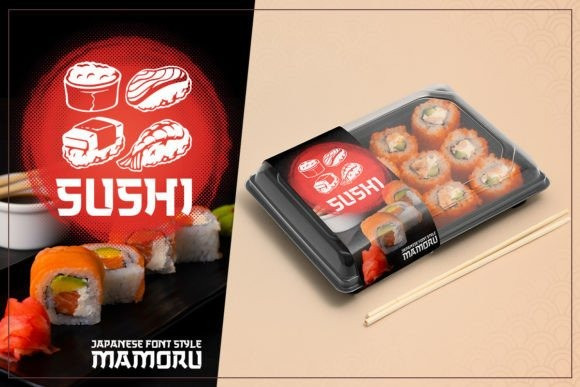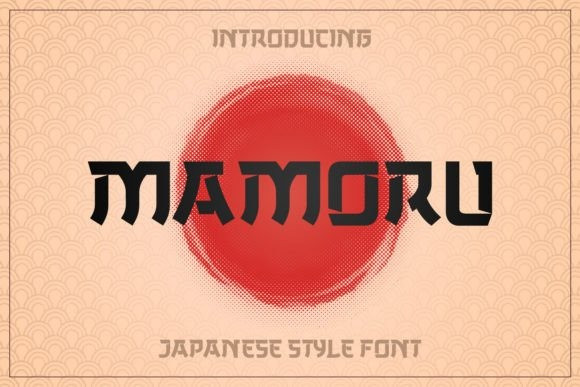
Mamoru Font
Mamoru Font Are you looking for a bold and solid display font that has an ethnic Asian traditional feeling? Mamoru is suitable to use for many occasions such as traveling, poetry, movie title, book title, brand identity, and many more.